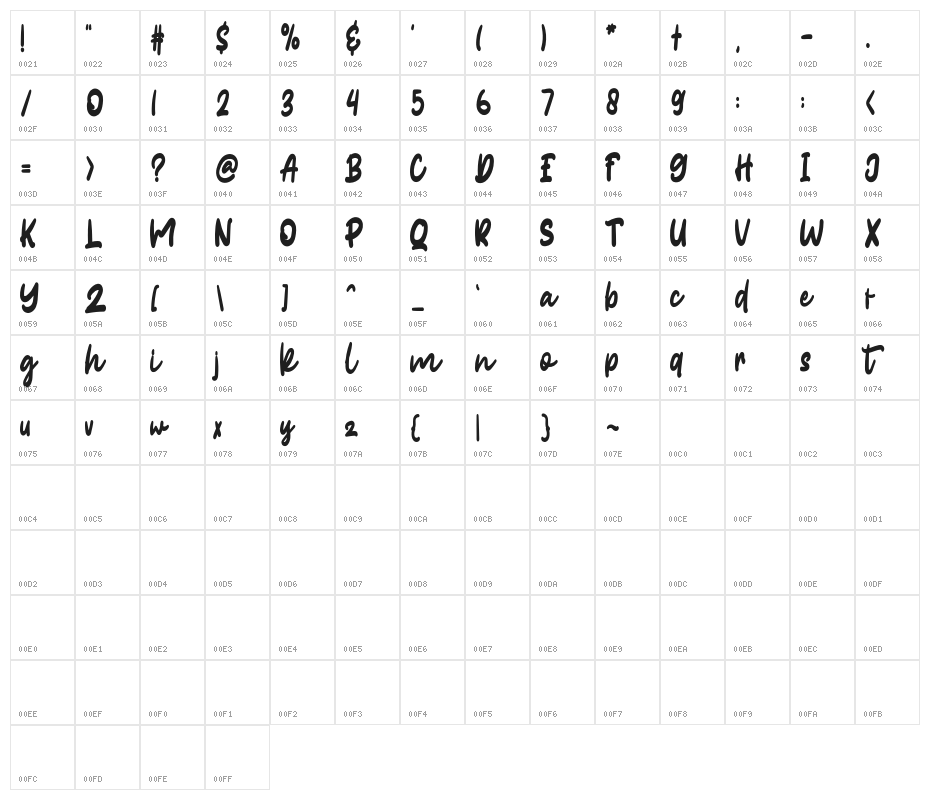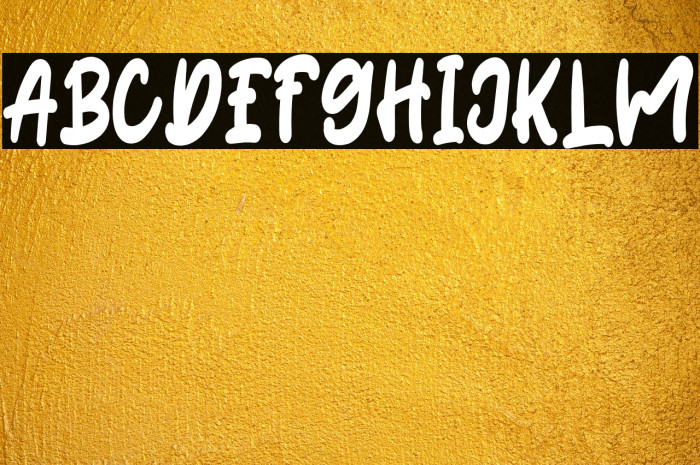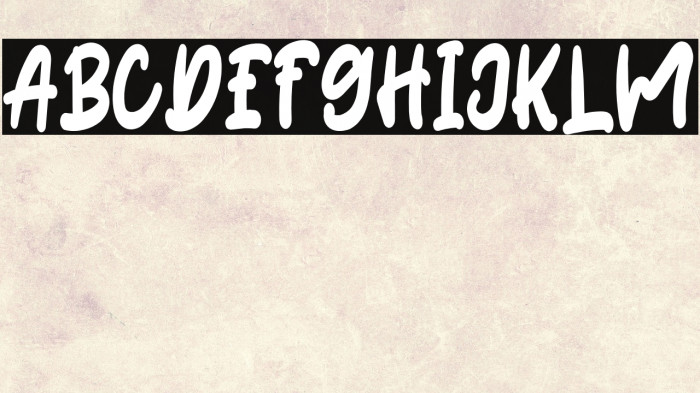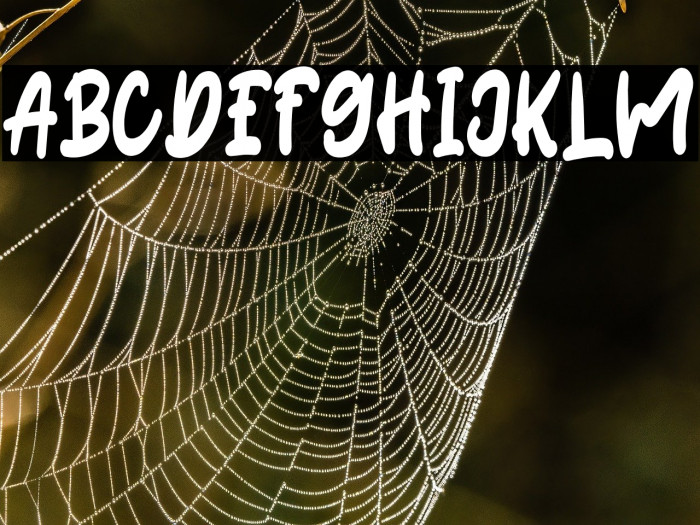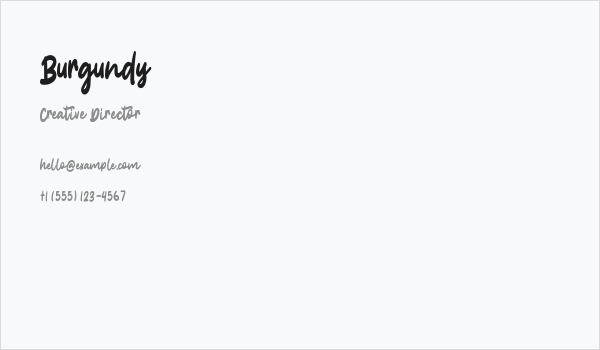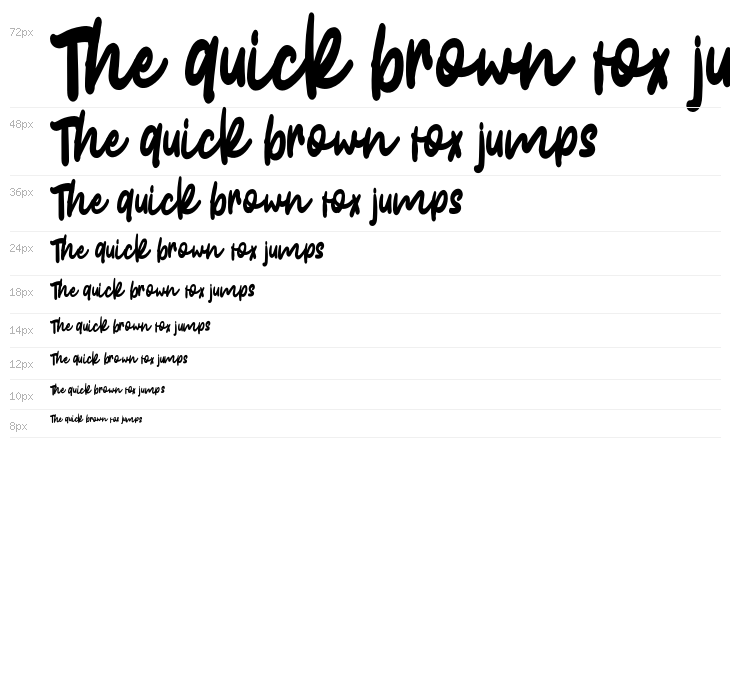
Burgundy Font
Burgundy Description
This font features a bold, handwritten style with a playful and energetic feel. The letters are rounded and slightly slanted, giving them a casual and approachable appearance. The uppercase and lowercase letters maintain a consistent flow, with smooth curves and a uniform thickness throughout. Numbers and special characters are designed to match the lively aesthetic, making them suitable for creative and informal projects. The overall look is dynamic and expressive, perfect for capturing attention and conveying a sense of fun.
| Proposed Projects | Ideal for greeting cards, children's books, playful branding, and social media graphics. |